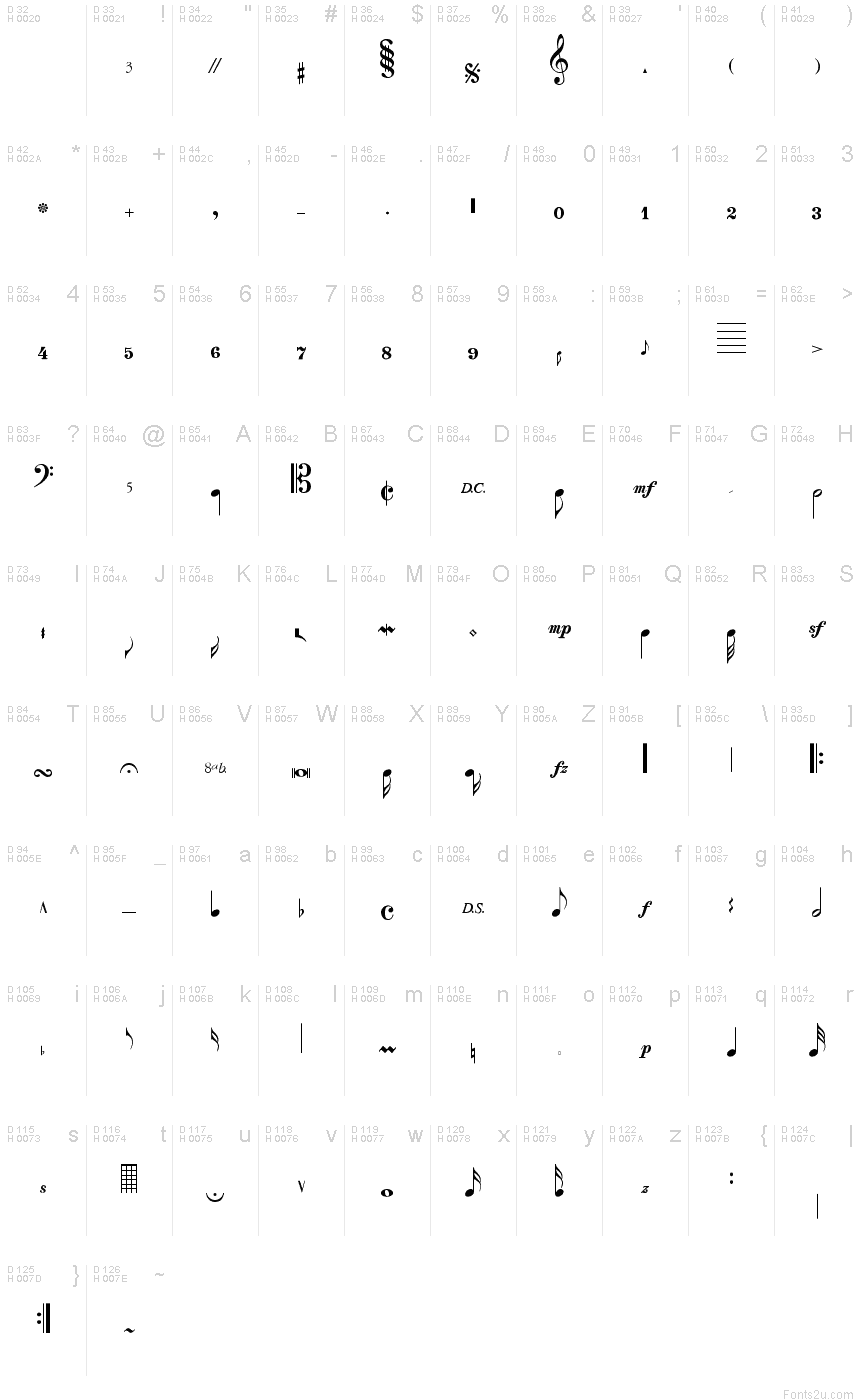
Notes Normal
Notes by Bay Animation, Inc. is a free music-note dingbat font built from simple notation marks and a few geometric symbols. The set keeps the shapes spare and direct, so each glyph reads like a small sign or accent rather than a decorative flourish.
It can mark concert flyers, album art, playlist covers, and sheet-music pages when you want a compact music cue instead of a full illustration. Those spare outlines also make it useful for borders and menu markers in layouts that need quick notes and small graphic accents.